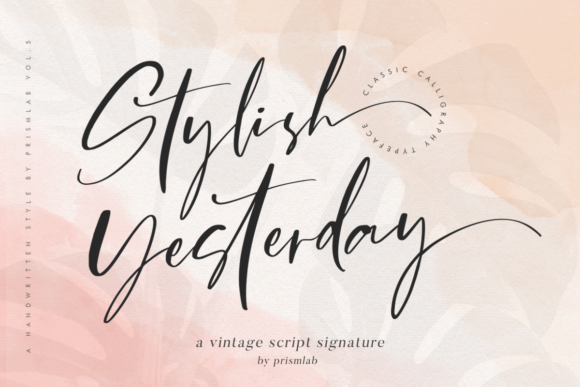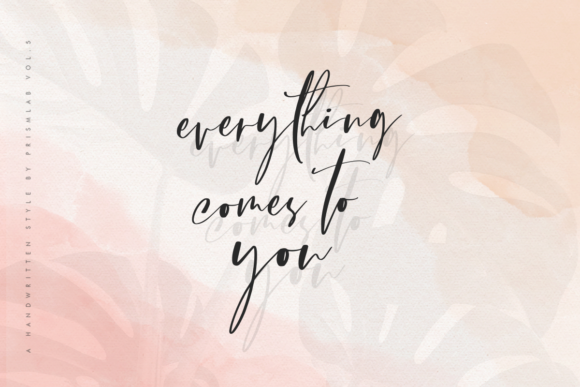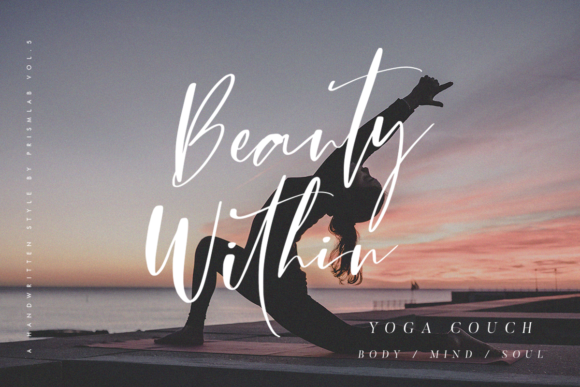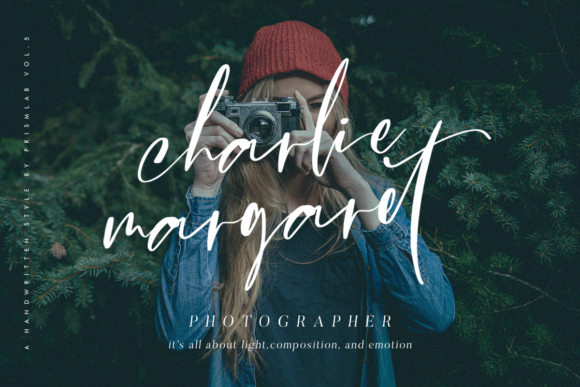
About Stylish Yesterday Font
Stylish Yesterday is an enchanting handwritten font. This versatile script font has a wide spectrum of applications ranging from greeting cards to headlines and is guaranteed to add a romantic feel to your next project.